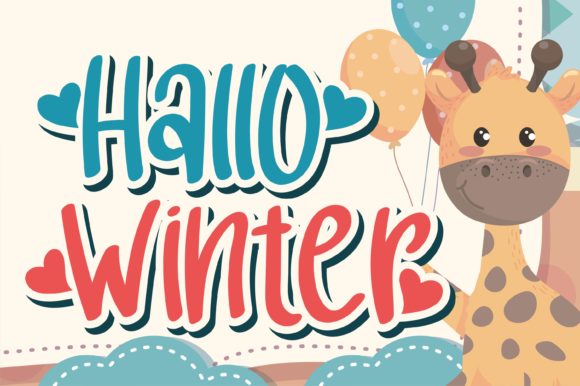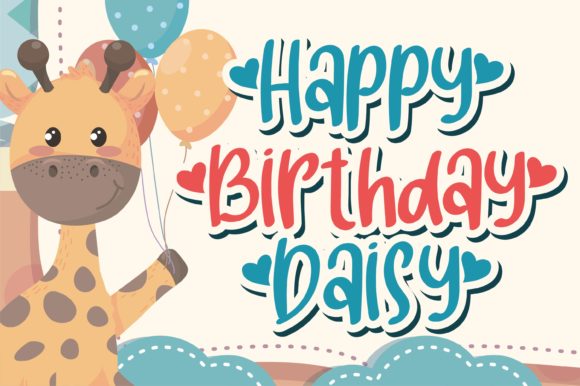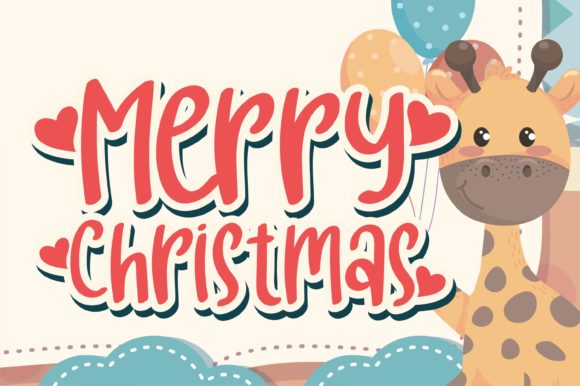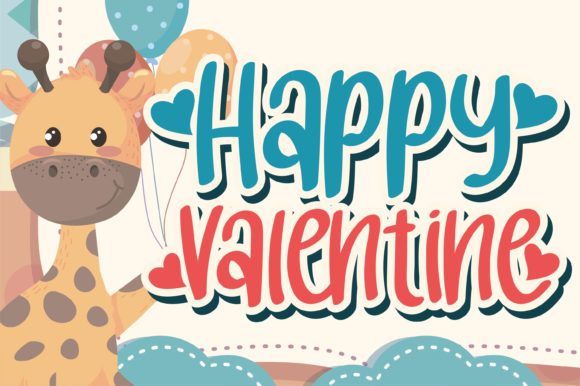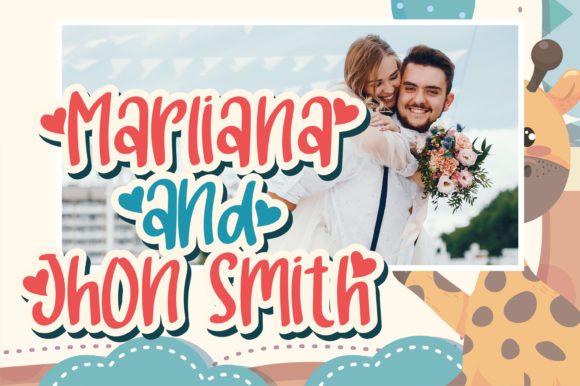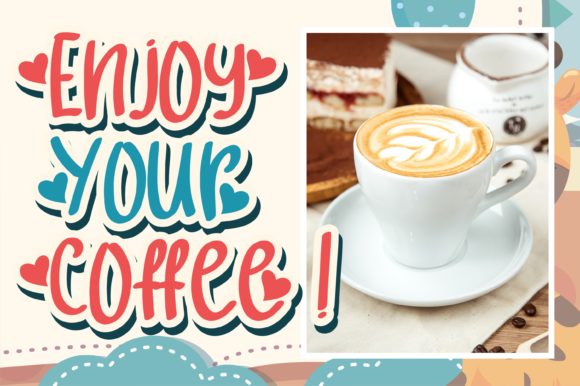
Hello Baby Font: The Perfect Choice for Children’s Activities and School Projects
Hello Baby Font is a delightful and enchanting display font that embodies playfulness and authenticity, making it an ideal choice for any children’s activity or school project. This charming font is designed to capture the imagination of young minds and bring a touch of magic to any creative endeavor.
What Makes Hello Baby Font So Special?
Hello Baby Font is a unique and carefully crafted font that boasts a distinctive and adorable style. Its playful and whimsical design makes it perfect for a wide range of applications, from children’s party invitations and educational materials to school projects and craft activities.
The font’s cute and magical appearance is sure to captivate young audiences and add a touch of excitement to any project. Whether you’re a designer, teacher, or parent, Hello Baby Font is an excellent choice for anyone looking to create engaging and visually appealing content for kids.
Key Features of Hello Baby Font
- Playful and Whimsical Design: Hello Baby Font features a unique and imaginative design that is sure to delight young minds.
- Cute and Magical Appearance: The font’s adorable style makes it perfect for children’s activities and school projects.
- Highly Readable: Despite its playful design, Hello Baby Font is highly readable, making it suitable for use in a variety of applications.
- Multilingual Support: The font supports multiple languages, making it a great choice for international projects.
Uses for Hello Baby Font
Hello Baby Font is a versatile font that can be used in a wide range of applications, including:
- Children’s Party Invitations: Create adorable and eye-catching invitations for kids’ parties and events.
- Educational Materials: Use Hello Baby Font to create engaging and interactive educational materials, such as worksheets and activity sheets.
- School Projects: Add a touch of personality to school projects, such as presentations, posters, and reports.
- Craft Activities: Use Hello Baby Font to create fun and colorful craft projects, such as greeting cards and gift tags.
Why Designers and Crafters Love Hello Baby Font
Hello Baby Font has become a favorite among designers and crafters due to its unique and versatile design. Here are just a few reasons why:
- Customizable: The font can be customized to suit a wide range of projects and applications.
- High-Quality Design: Hello Baby Font features a high-quality design that is sure to impress.
Hello Baby Font is a delightful and enchanting display font that is perfect for any children’s activity or school project. Its playful and whimsical design makes it a great choice for designers, teachers, and parents looking to create engaging and visually appealing content for kids. With its highly readable design, multilingual support, and customizable features, Hello Baby Font is an excellent addition to any creative project.